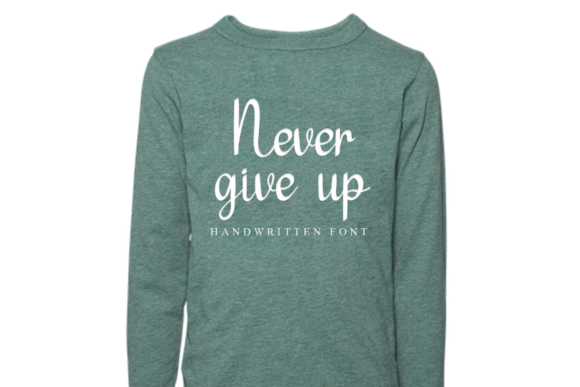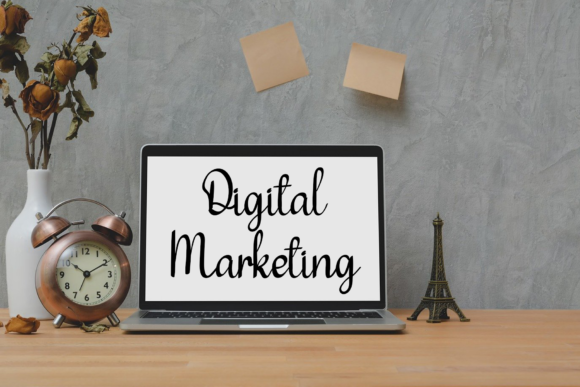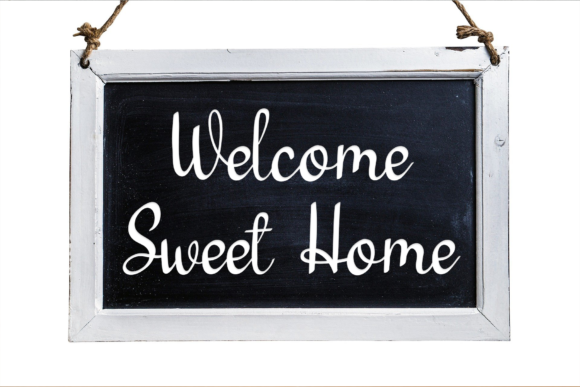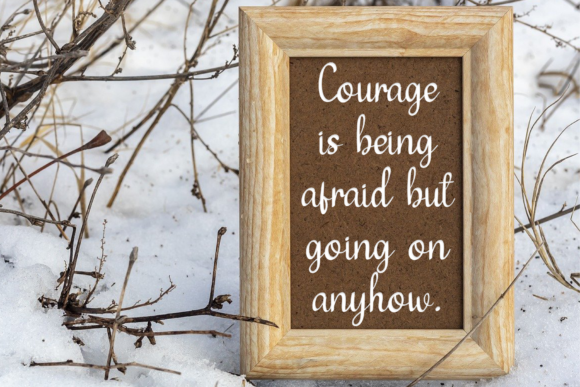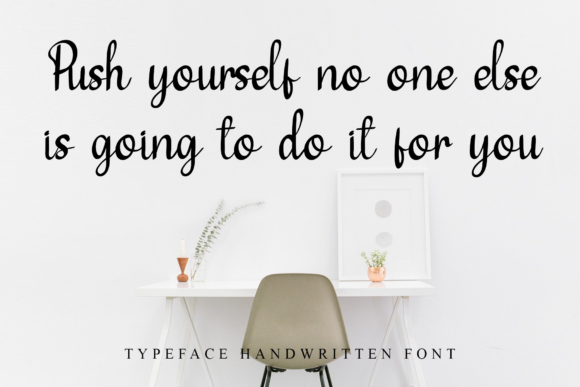
Autography Font
About Autography Font
Autography is a cursive and delicate script font that exudes elegance and class. This font was particularly crafted for those who need a beautiful and refreshing look to their designs.